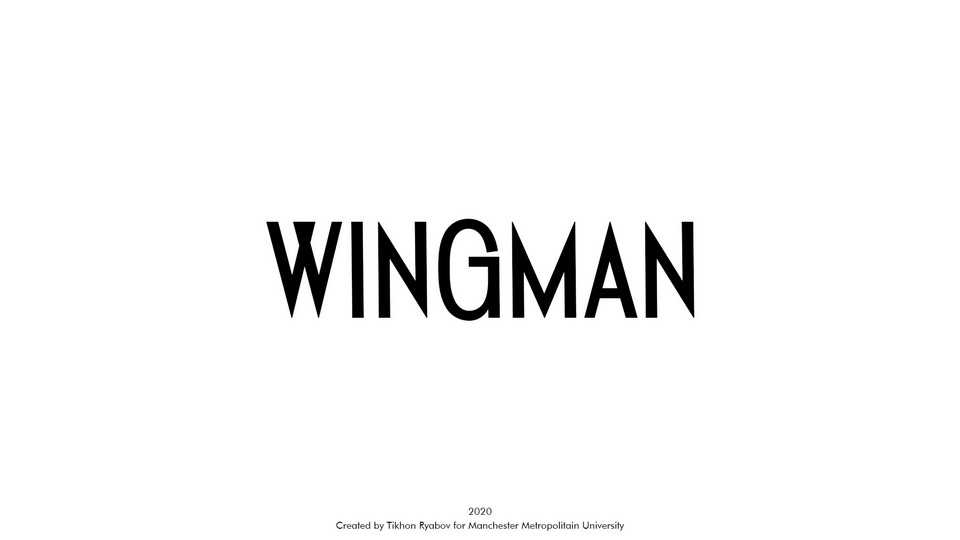
Wingman Font › Fontesk – Download Grátis
Download Wingman font, a sans serif typeface inspired by the era of the 1940’s and the noir genre in comics and cinematography. Because of its simplicity and independence, Wingman can be used in very different forms.
Designer: Tikhon Ryabov